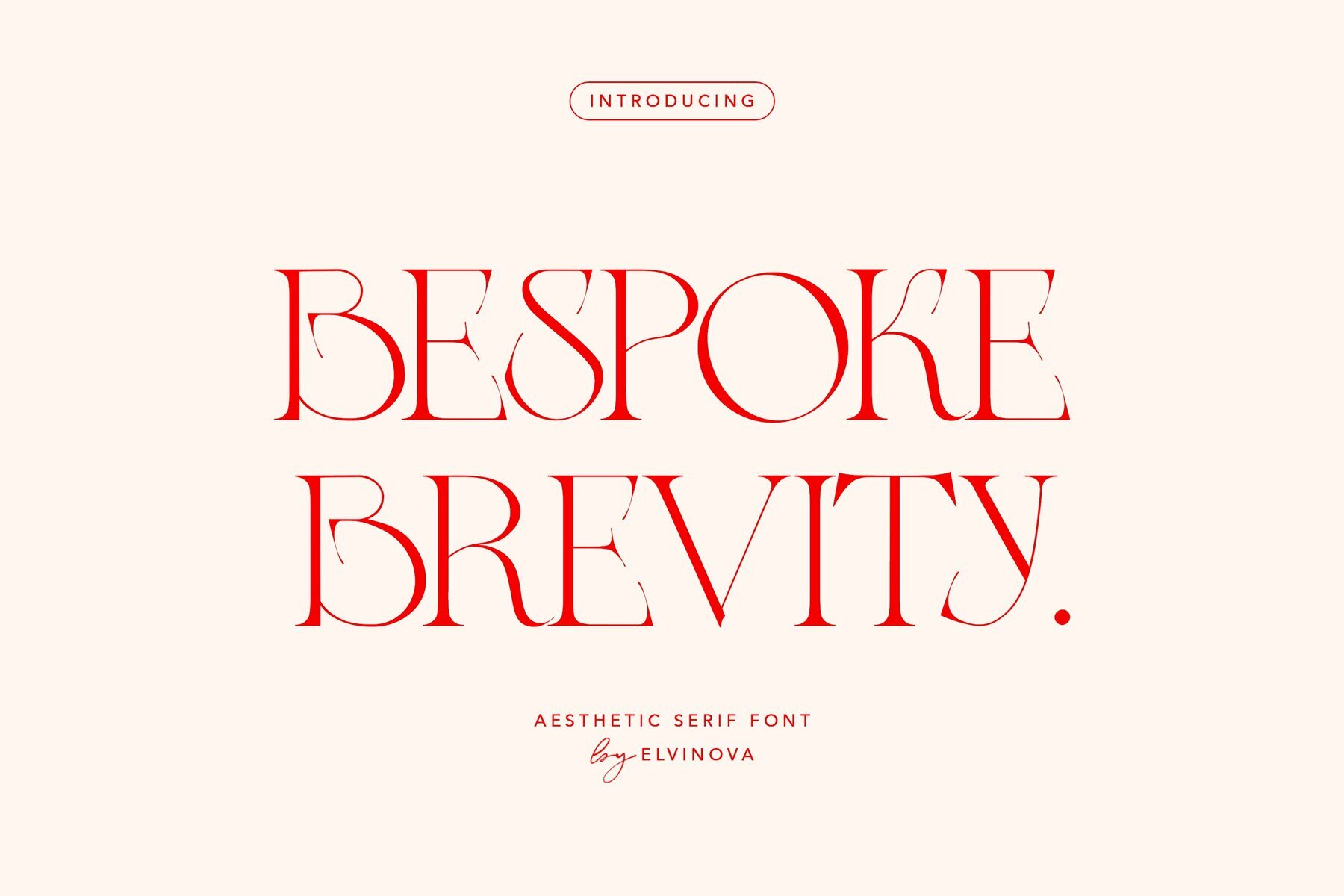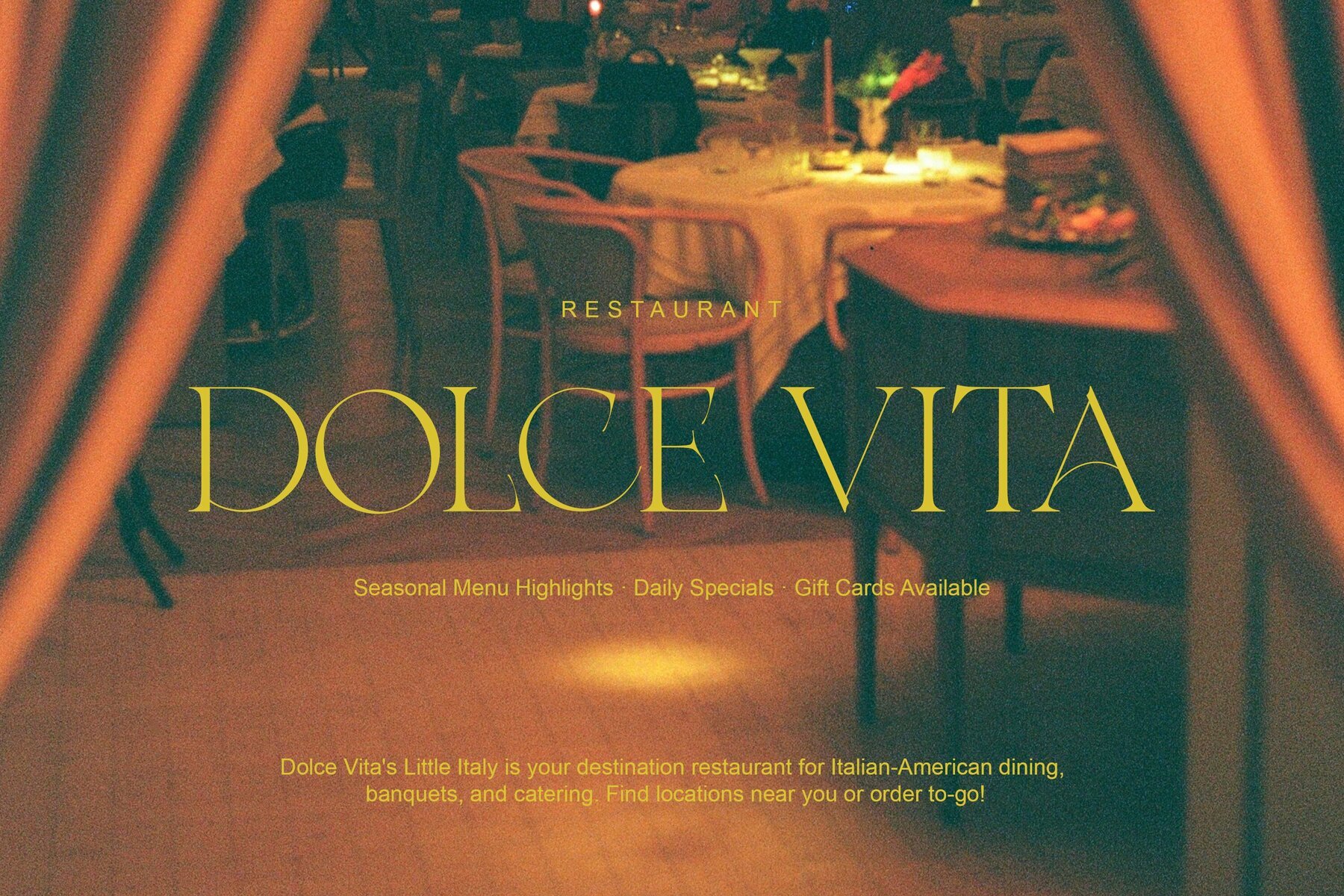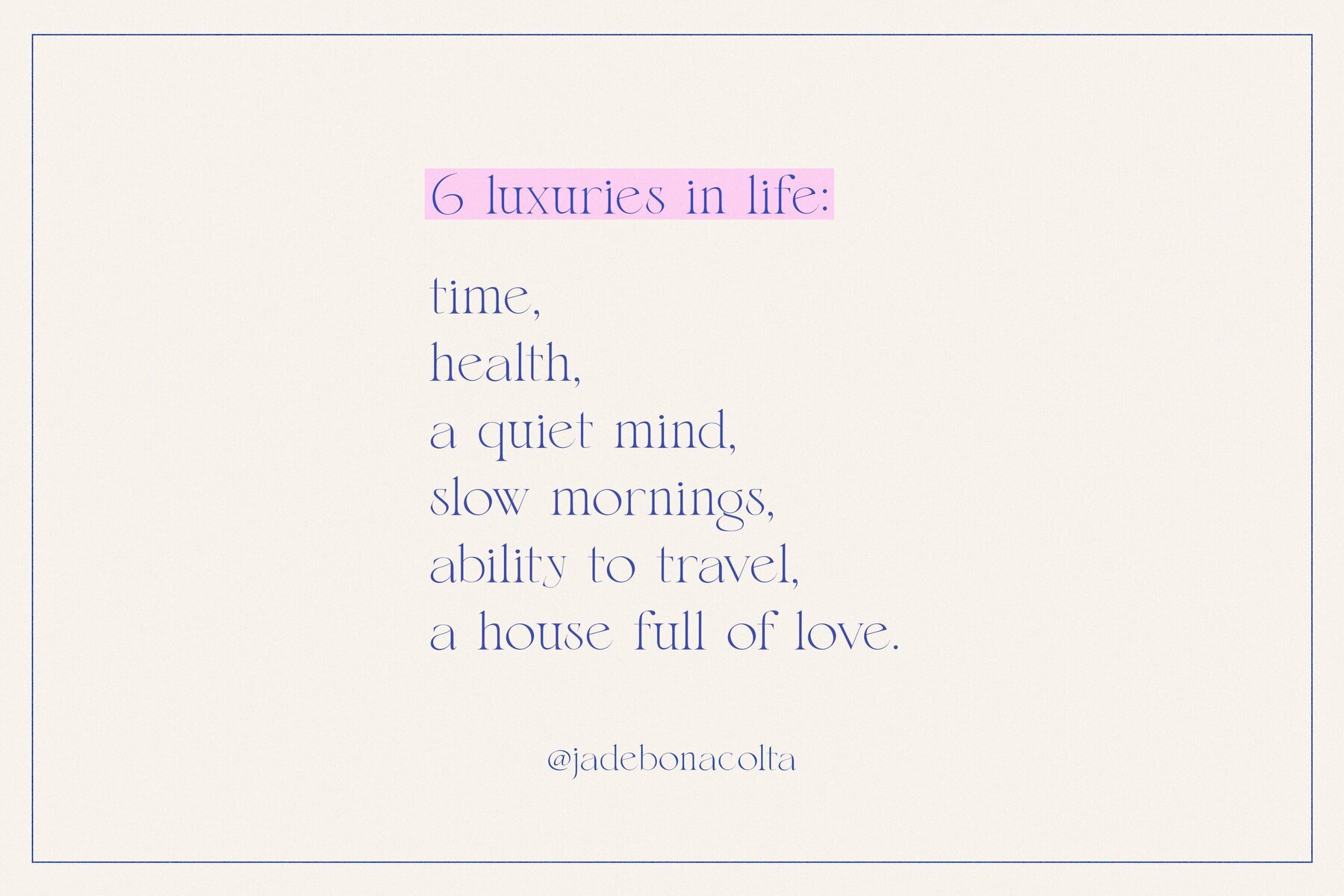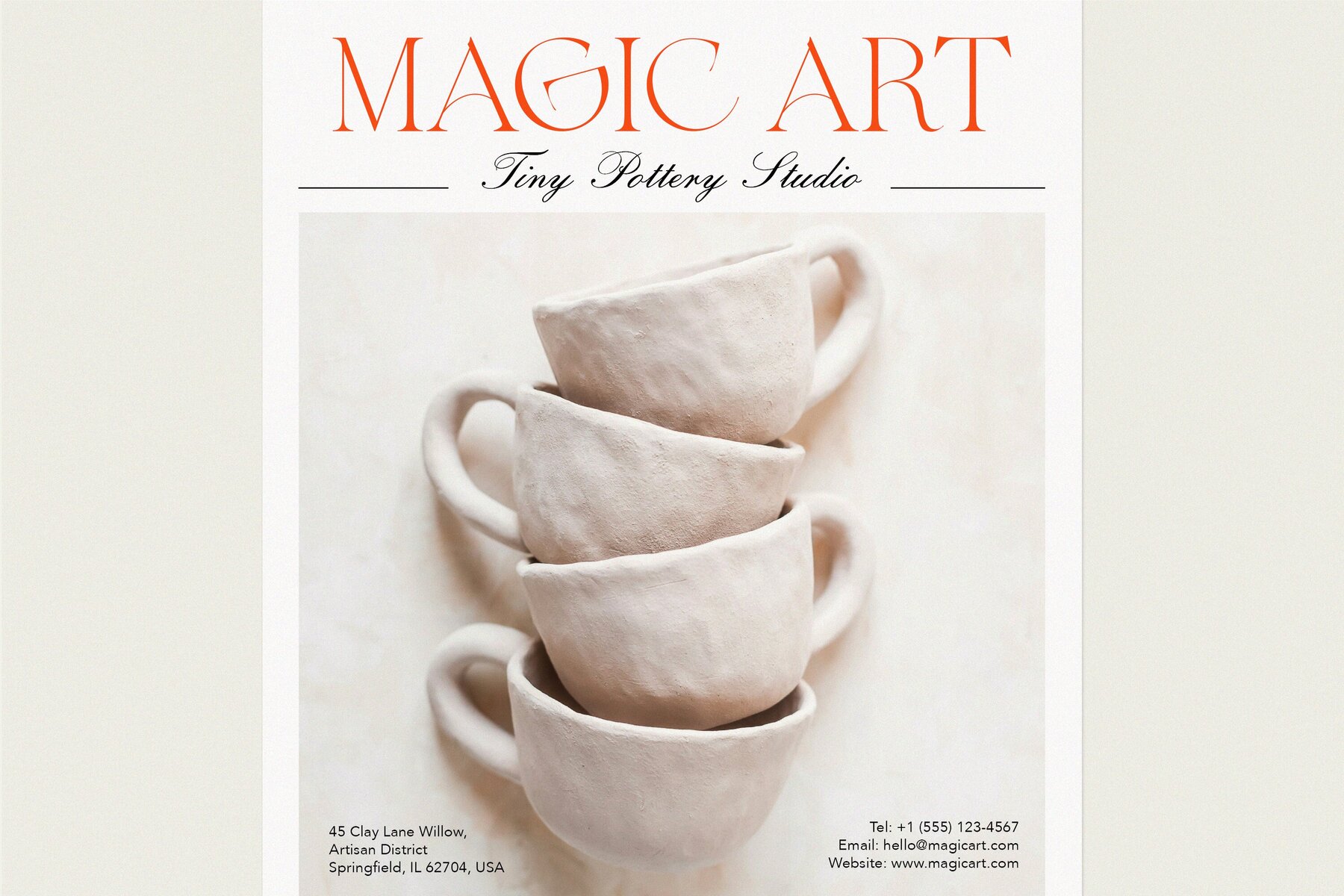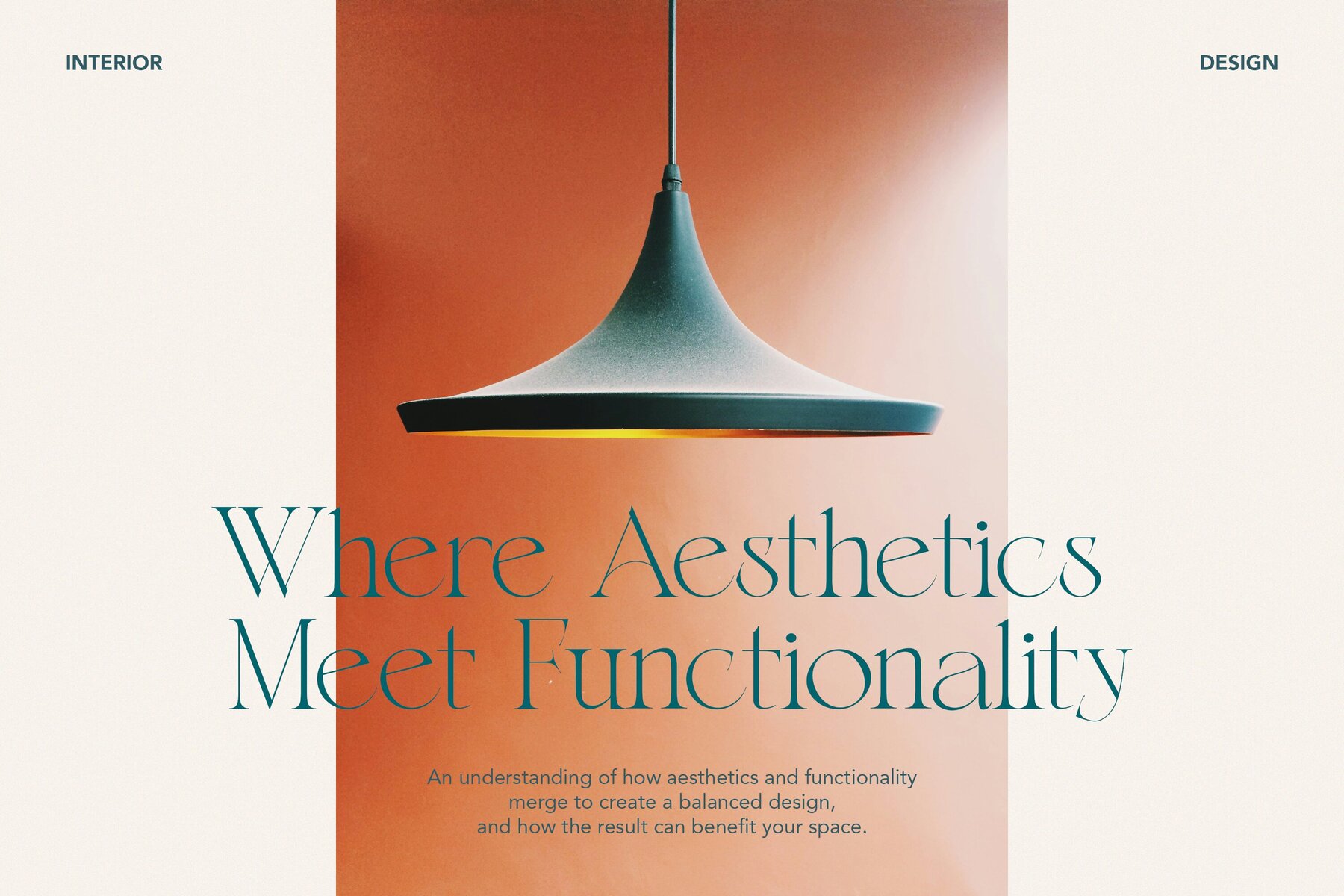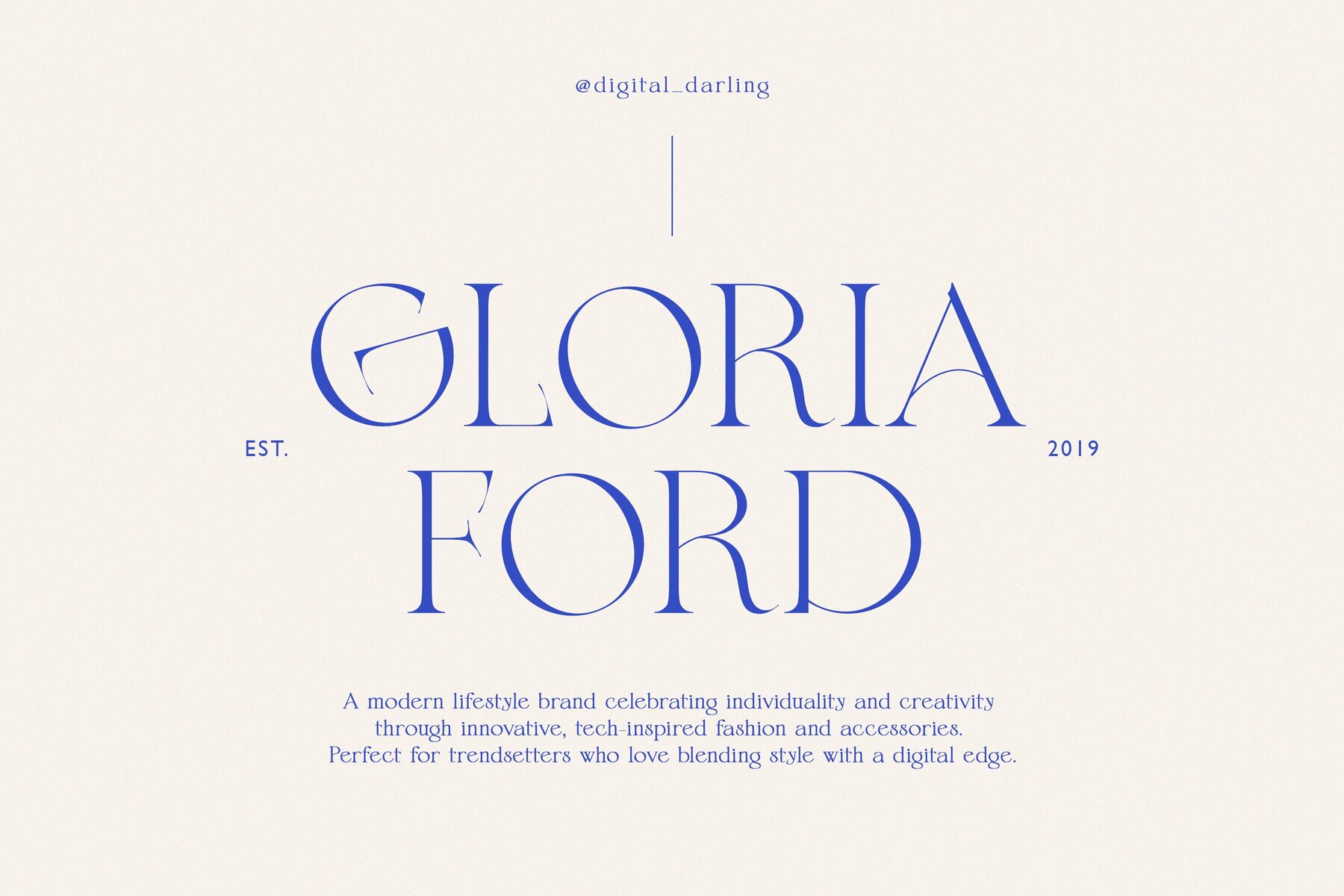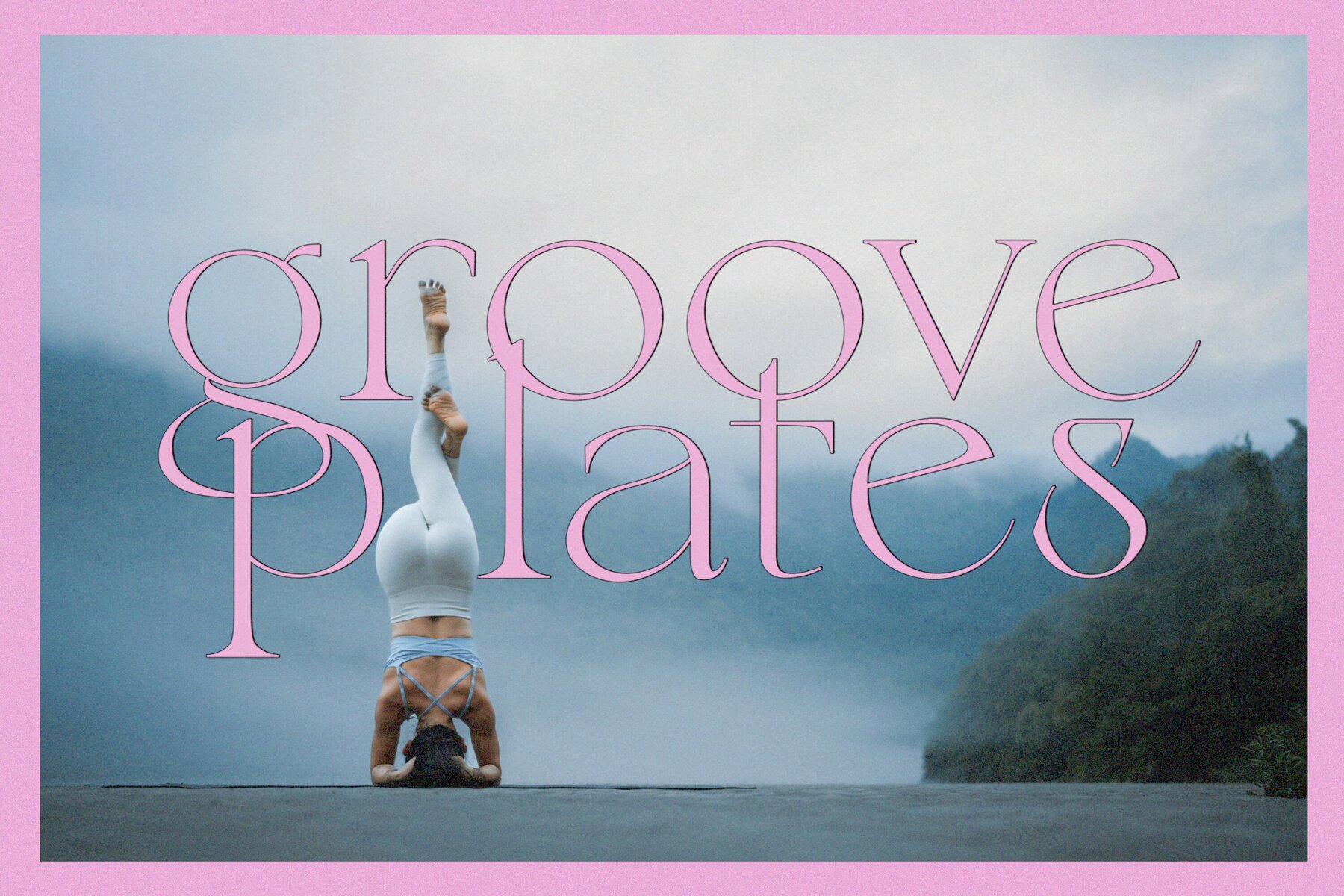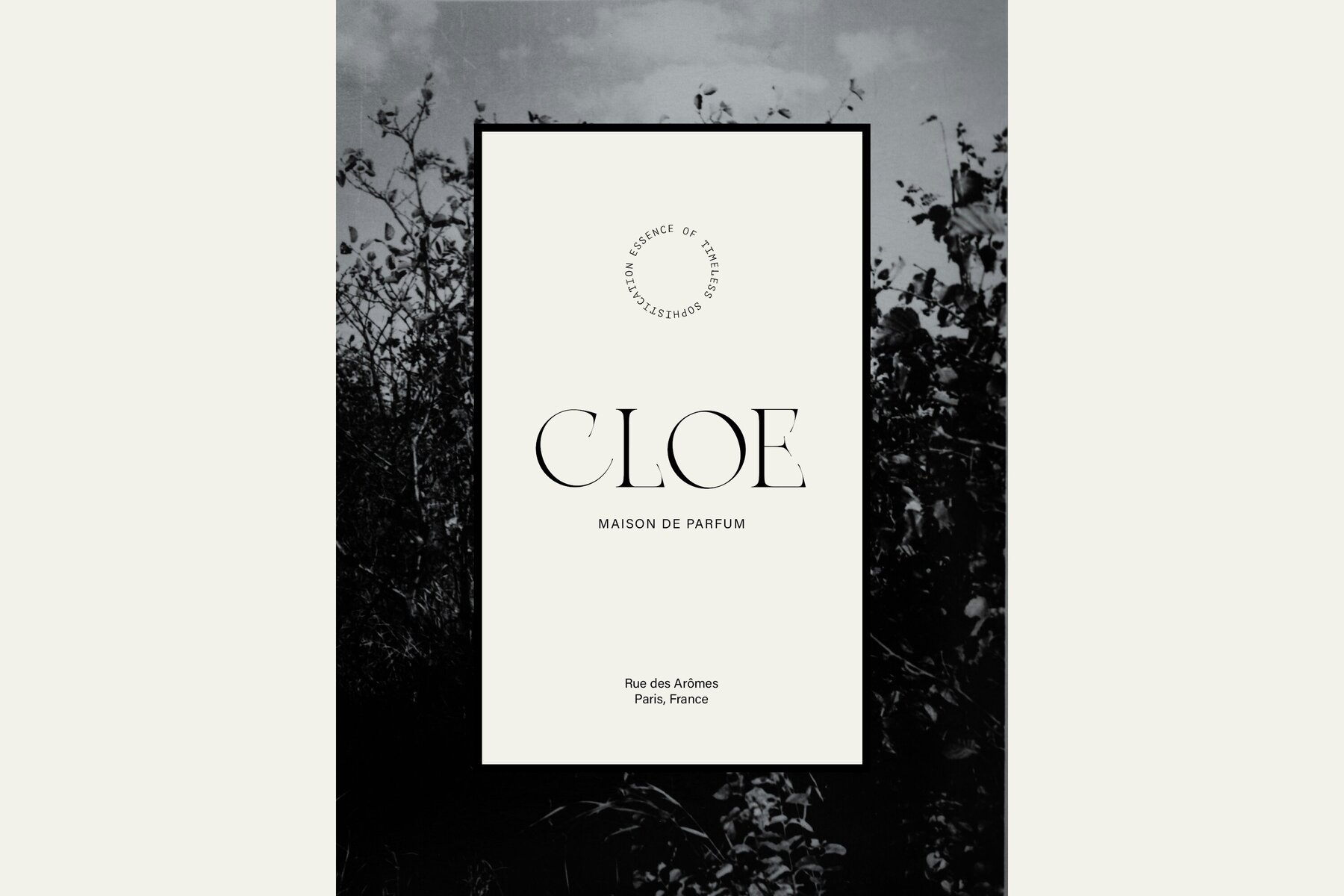
Bespoke Brevity Font
Bespoke Brevity is a sophisticated serif font that exudes charm and elegance, ideal for branding and timeless design projects. Its chic and authentic style offers a blend of professionalism and uniqueness, making it suitable for various applications from logos to editorial design.
This font includes both uppercase and lowercase letters, numerals, and punctuation marks. It provides extensive language support for English, German, French, Spanish, Italian, Danish, Finnish, Portuguese, Swedish, Norwegian, Dutch, Indonesian, Luxembourgish, Icelandic, Cornish, Hungarian, Filipino, Romansh, Slovenian, Estonian, Polish, and Turkish.